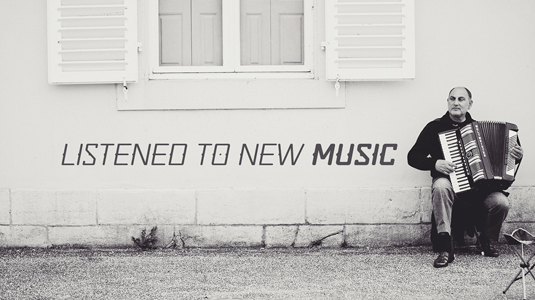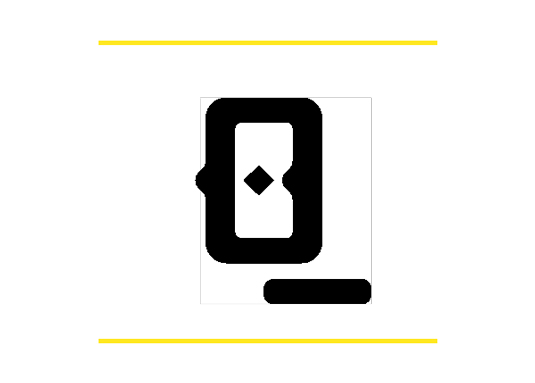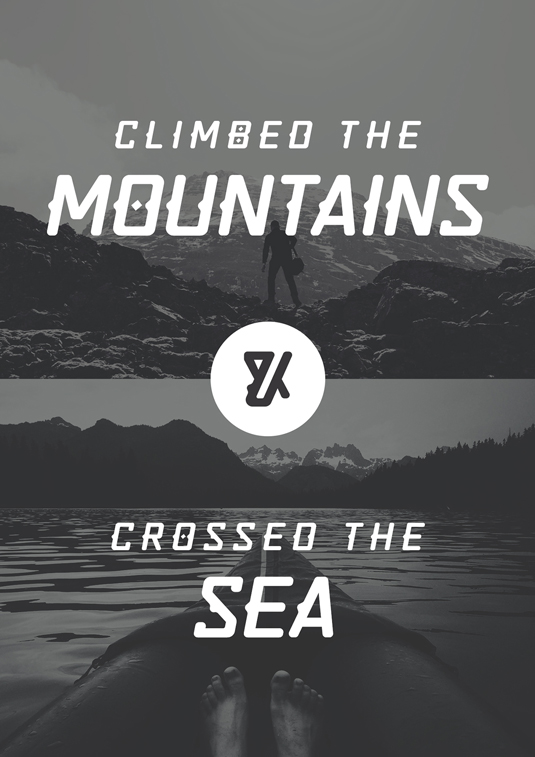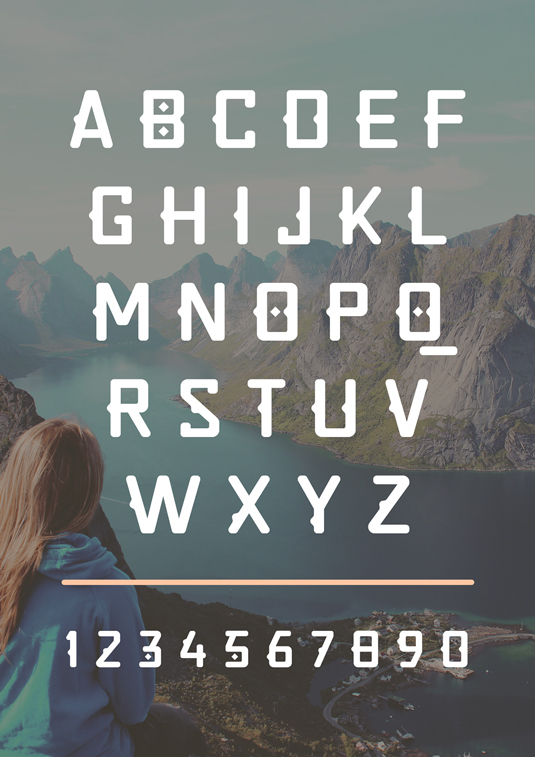
Font of the day: Quirko
Every day we showcase the best fonts on the web. Today it's Quirko by Shrenik Ganatra, which is totally free to download.
Quirko by Shrenik Ganatra
Today's typeface of choice is Quirko by independent artist Shrenik Ganatra. "A family of four fonts, Quirko is inspired by tall, rounded sans serif typefaces," Ganatra comments on Behance. "Its assertive appearance and multiple weights makes it a suitable typeface for both digital and print media."